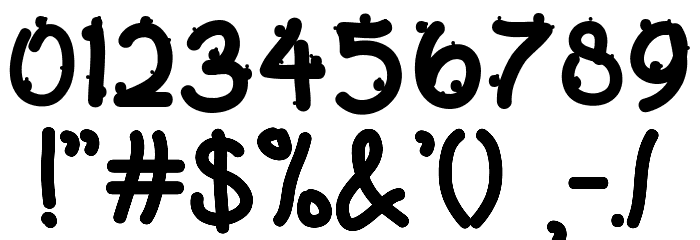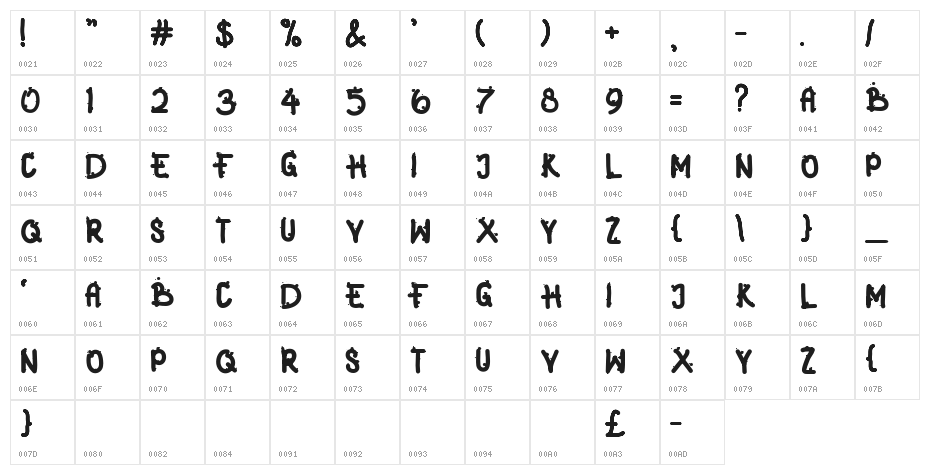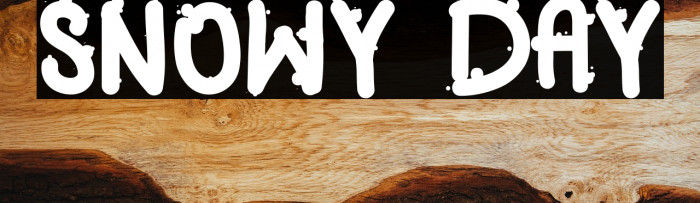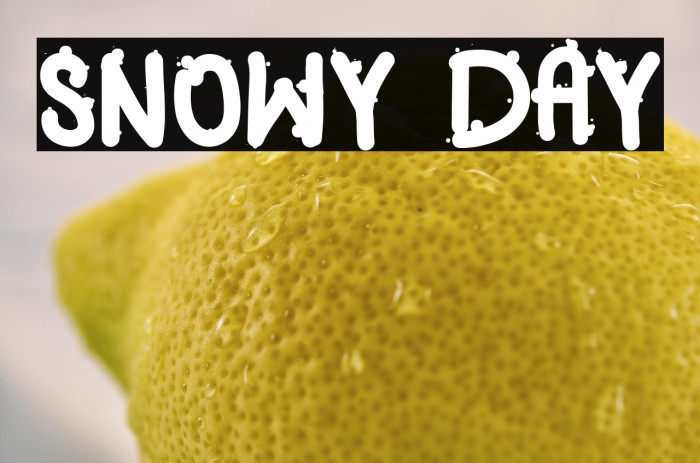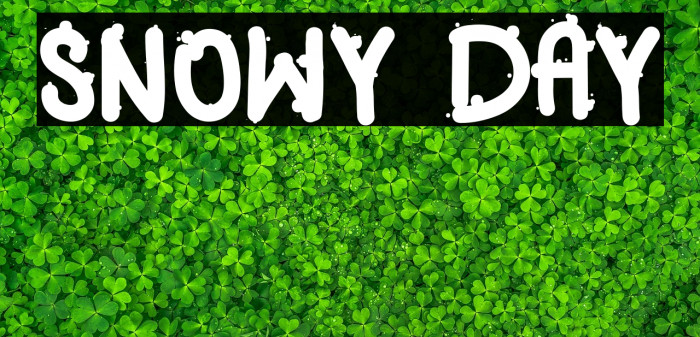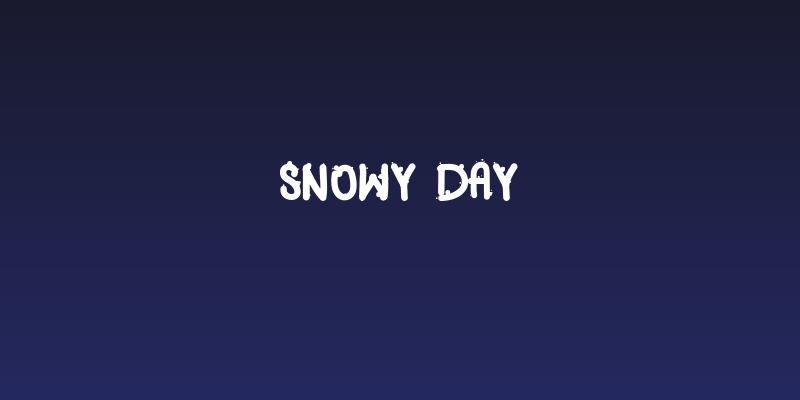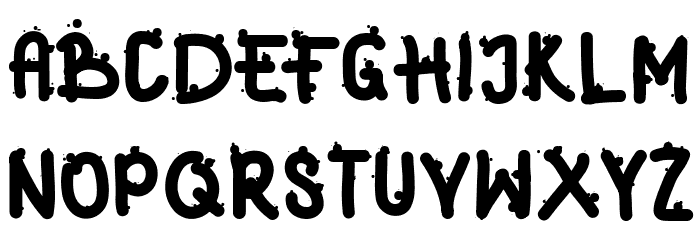
SNOWY DAY Font
SNOWY DAY Description
This playful and bold font features a unique, hand-drawn style with a snowy effect, giving each character a whimsical and festive appearance. The letters are rounded and slightly irregular, adding to the charm and casual feel of the font. The uppercase and lowercase letters maintain a consistent style, with the uppercase being slightly larger and more pronounced. Numbers and special characters are included, each with the same snowy embellishments, making this font perfect for holiday-themed projects. The overall design is both eye-catching and fun, ideal for capturing attention in creative displays.
| Proposed Projects | Ideal for holiday cards, festive banners, children's book covers, and playful branding. |